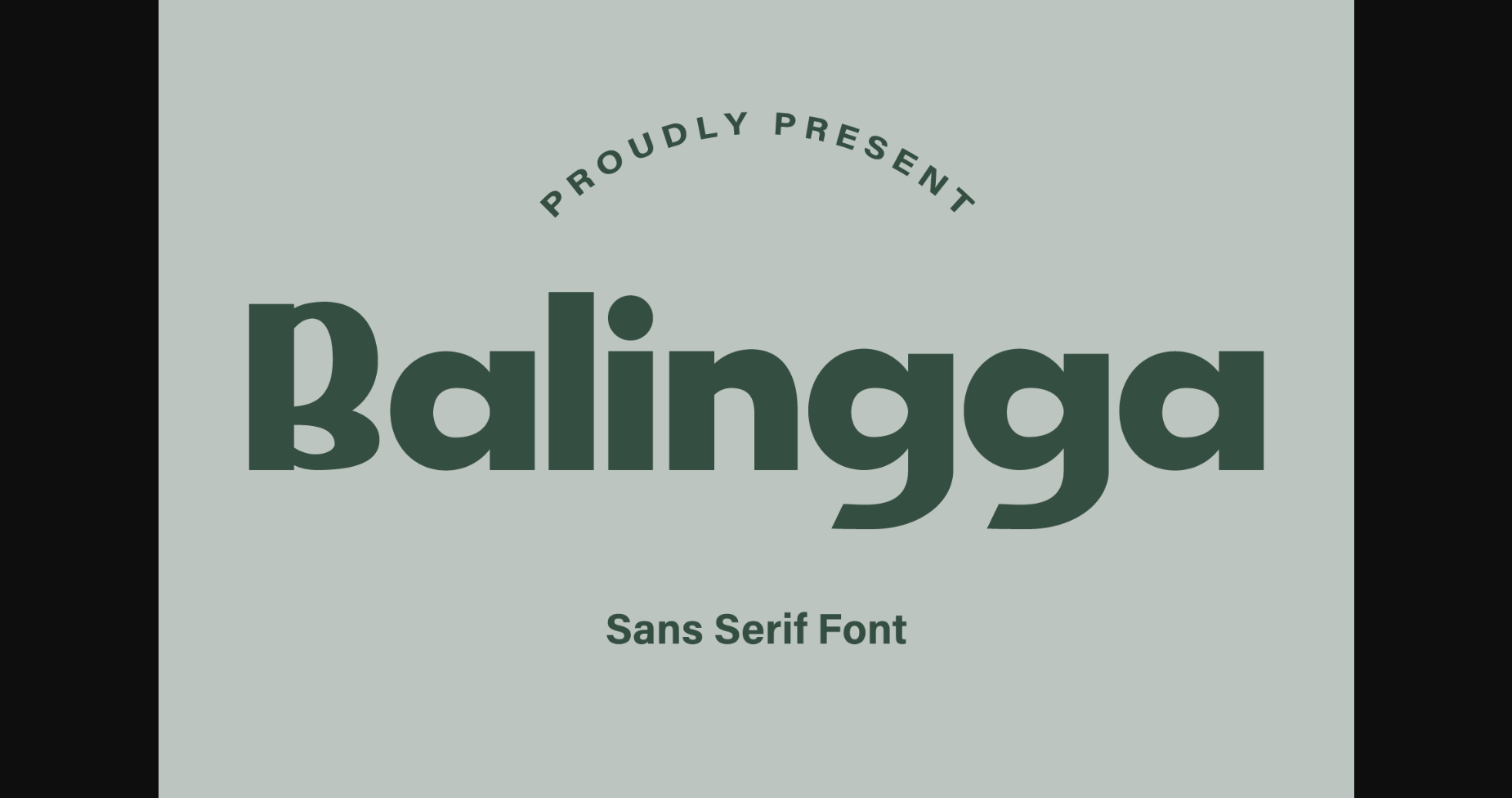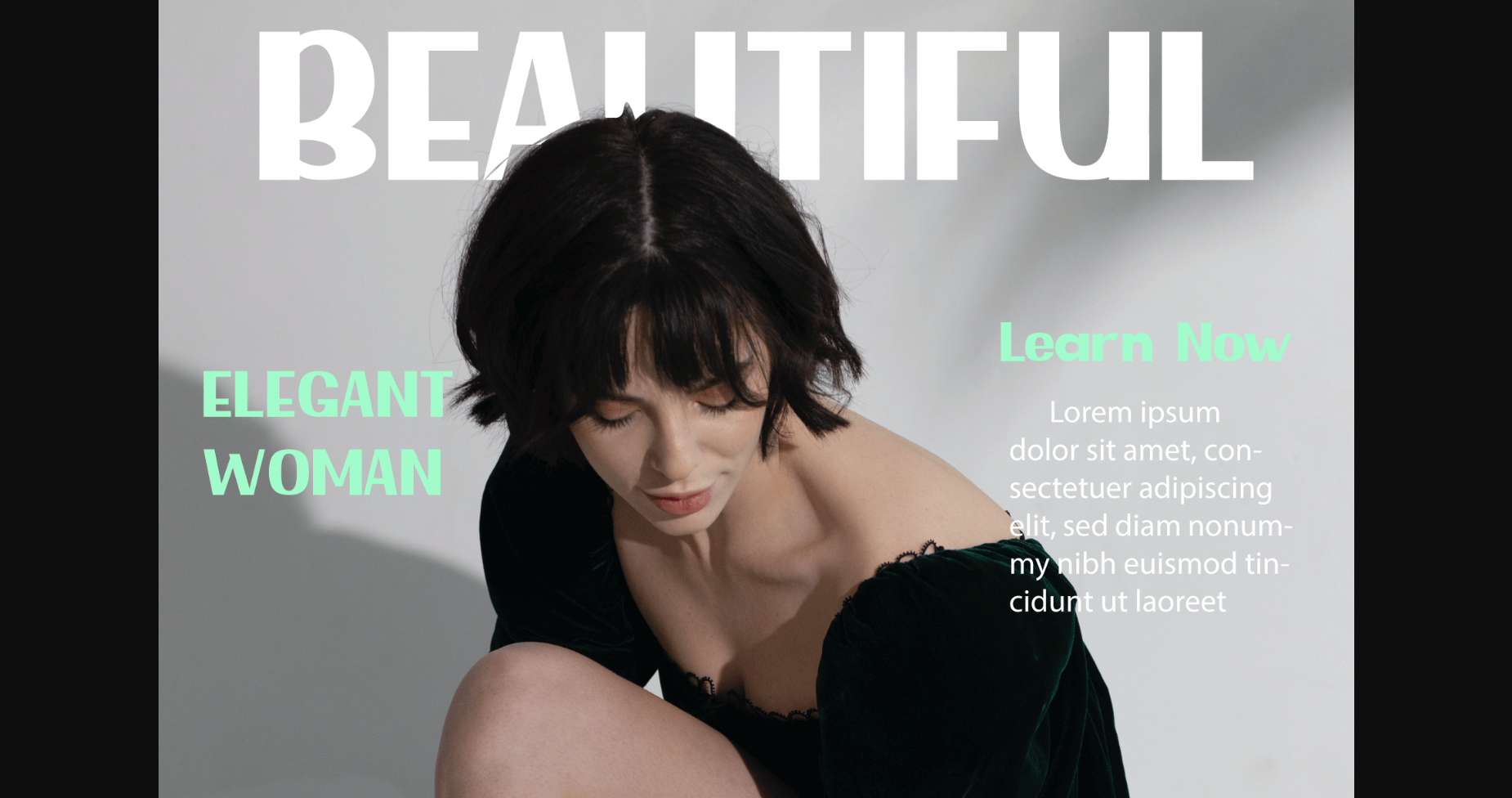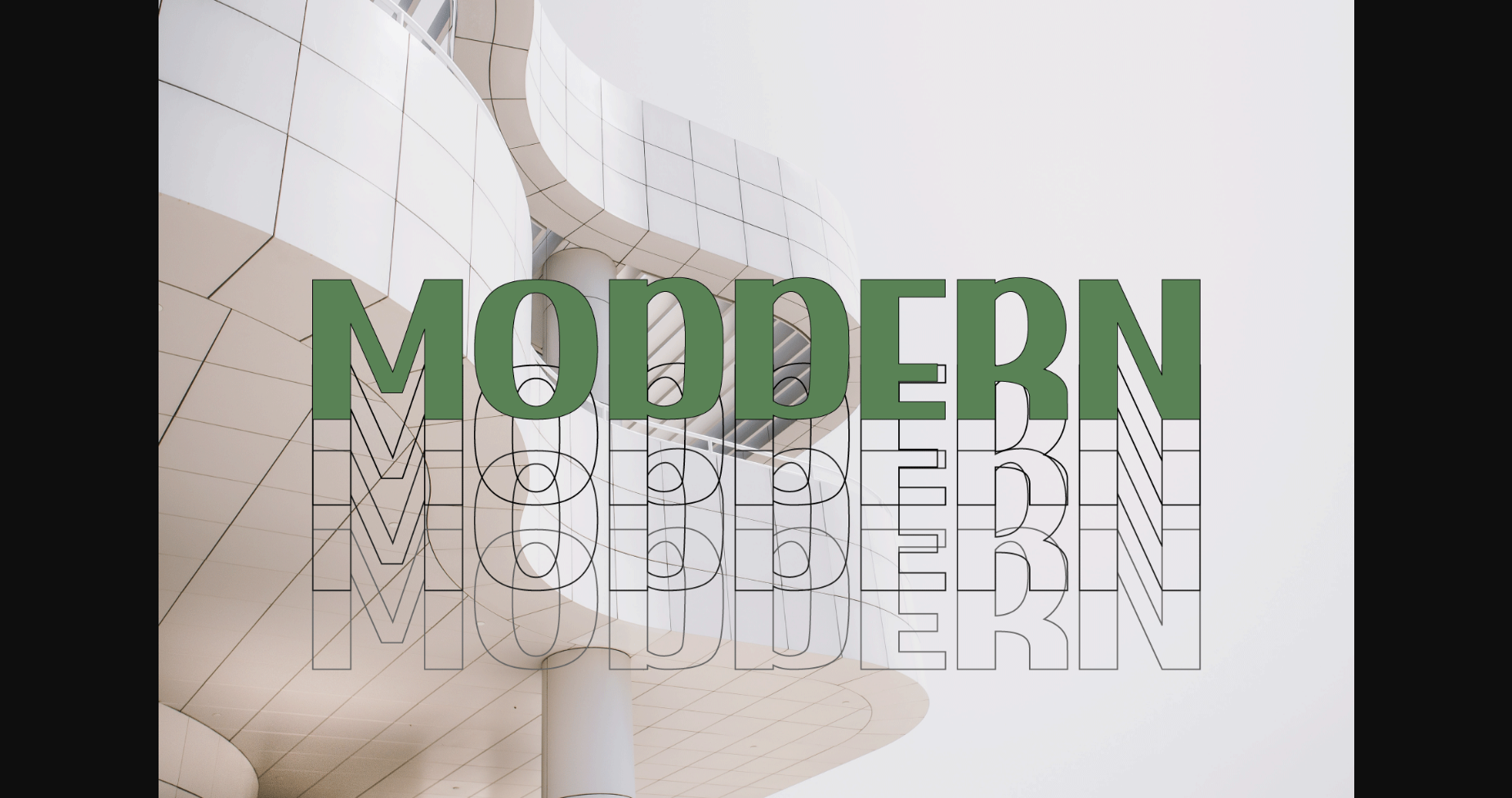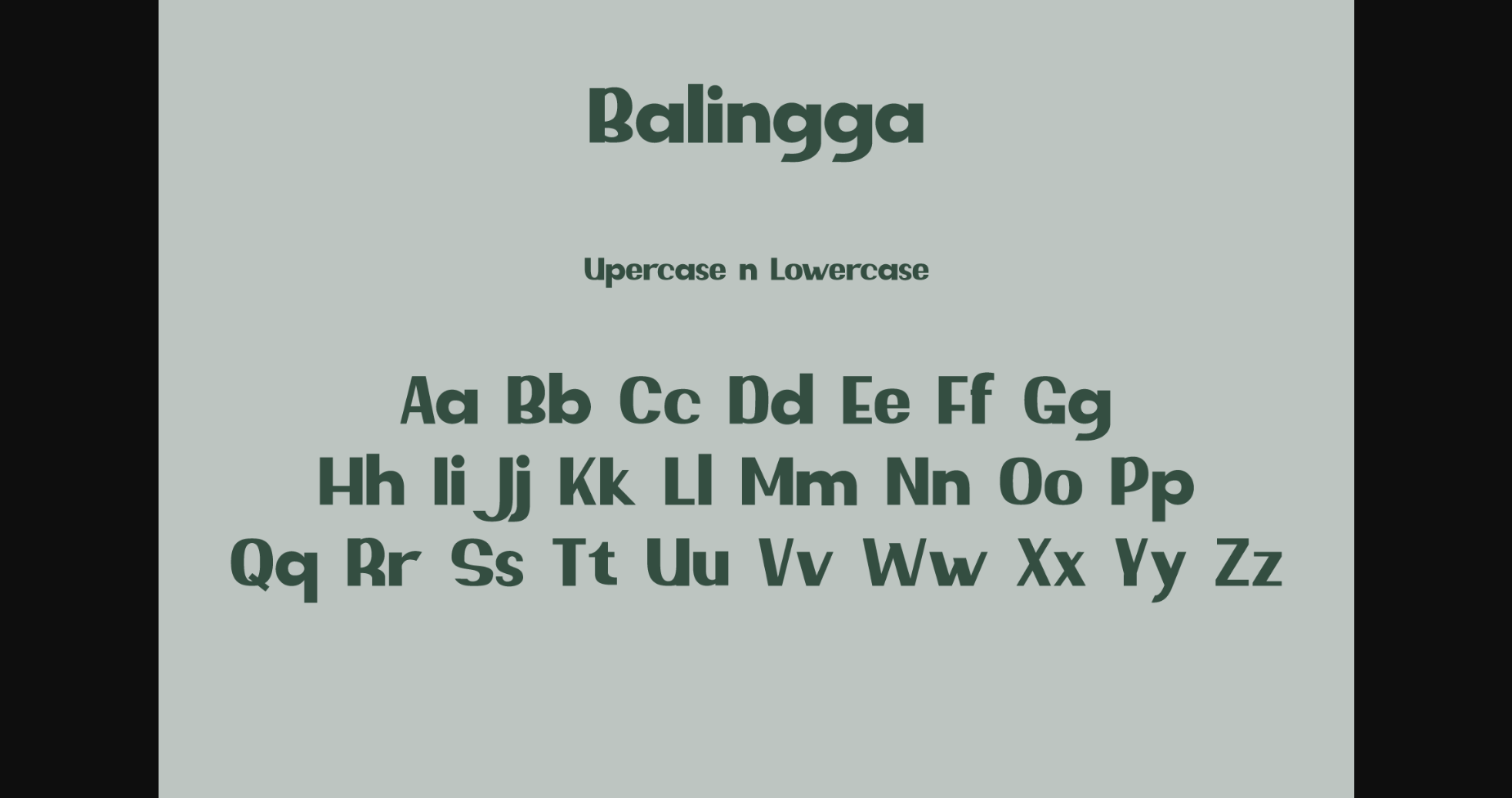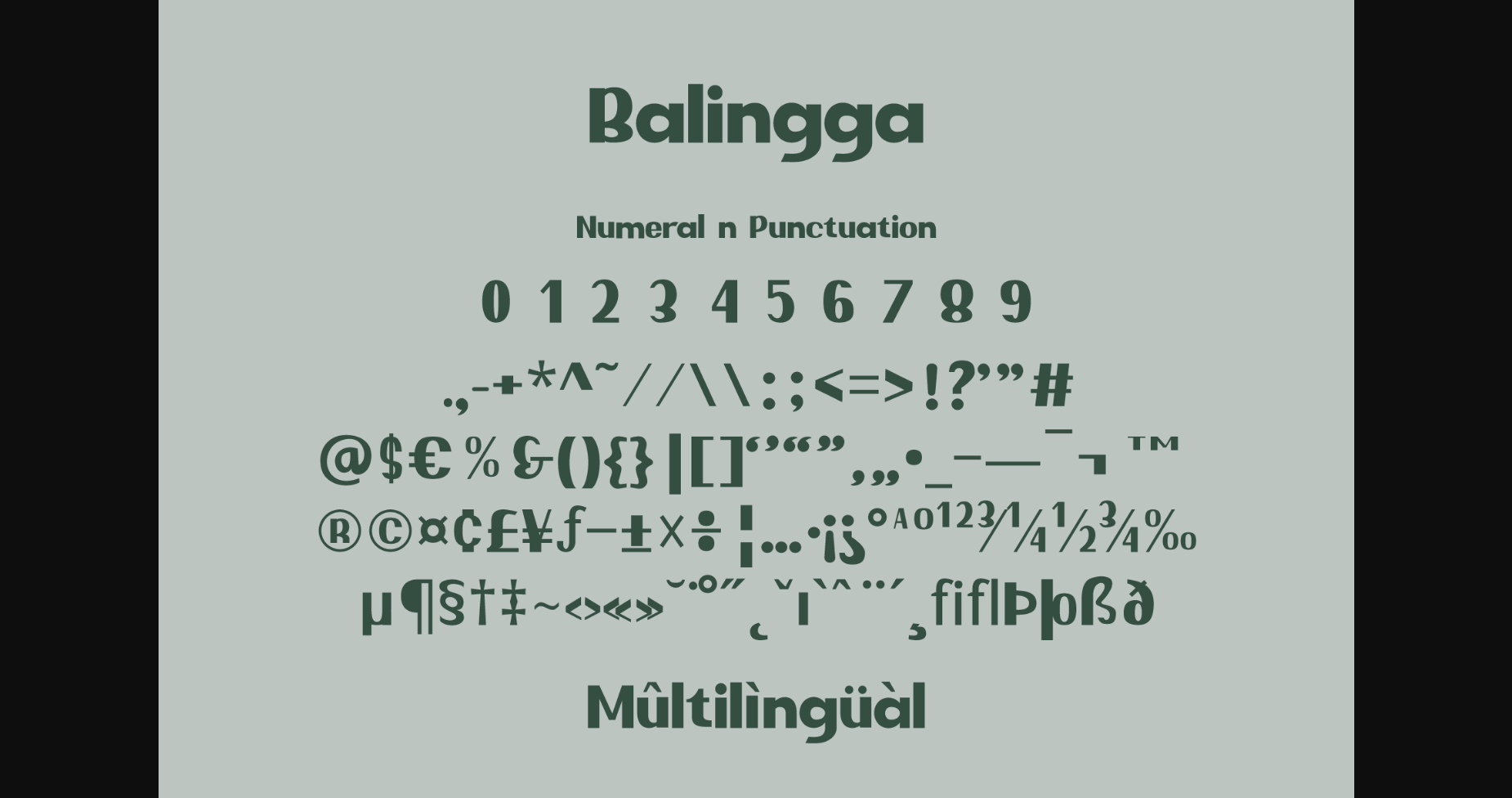
Balingga Font
About Balingga Font
Balingga is a neat and stylish sans serif font. Whatever the topic, this font will be a wonderful asset to your font library, as it has the potential to enhance any creation.